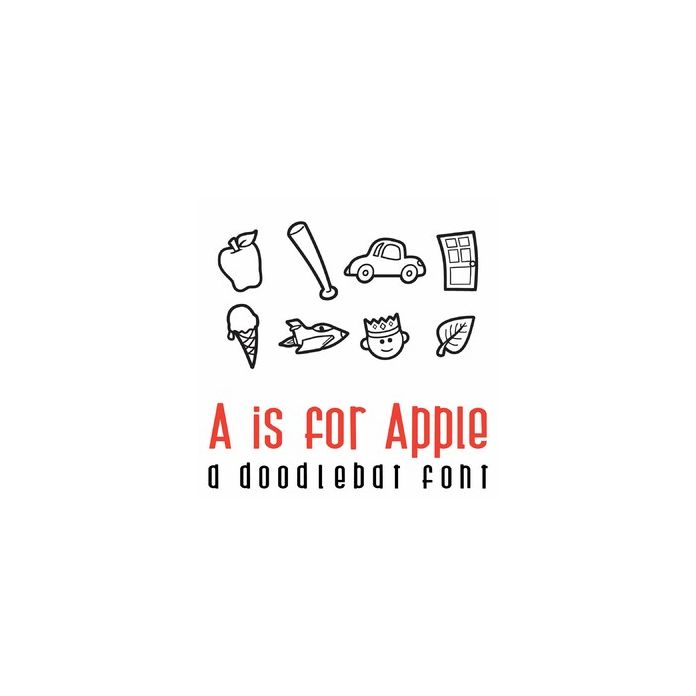
This fun doodlebat font features 36 Alphabet themed images one for each letter. Perfect for cards, crafts, gifts, decor, scrap book pages, planner stickers and more! Glyphs are A-Z and 0-9. Each Glyph has an image that starts with that letters and numbers are represented by counting stars.